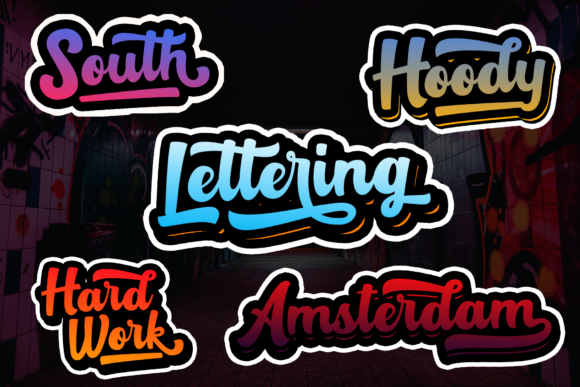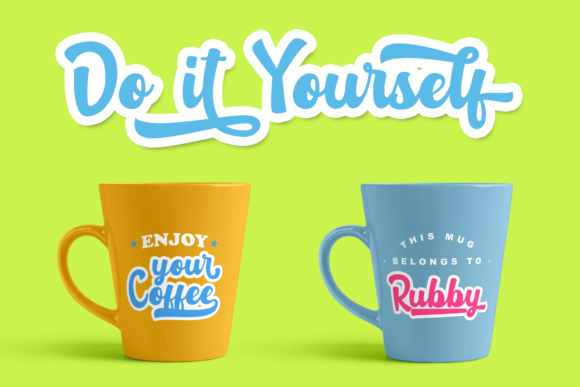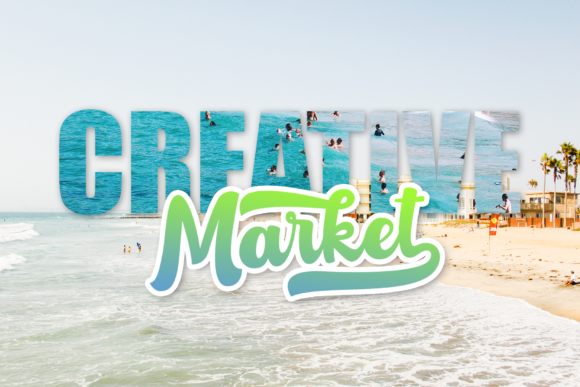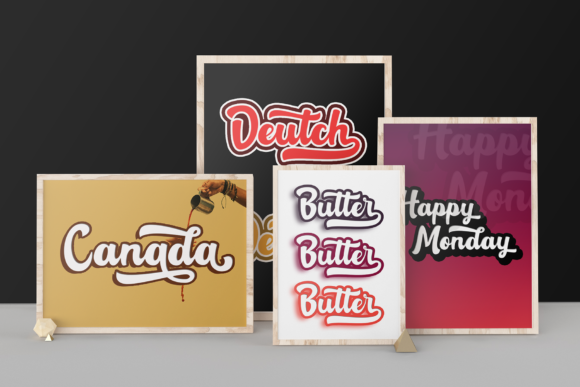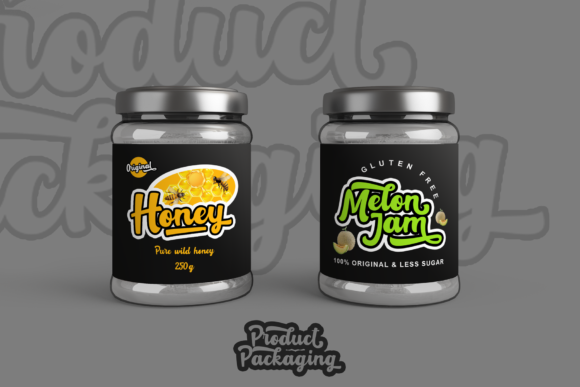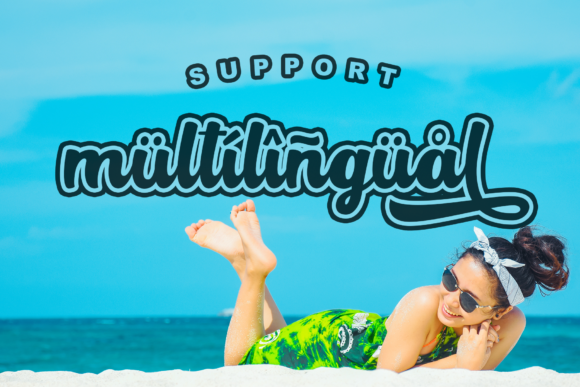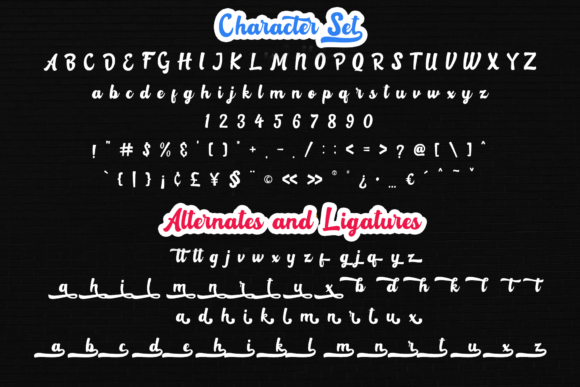
Rotterin Script Font
About Rotterin Script Font
Rotterin is a layered script font which makes it suitable for Cricut stickers, Logos, greeting cards, quotes, sticker, posters, branding or any other purpose to make your art/design project look pretty and trendy.